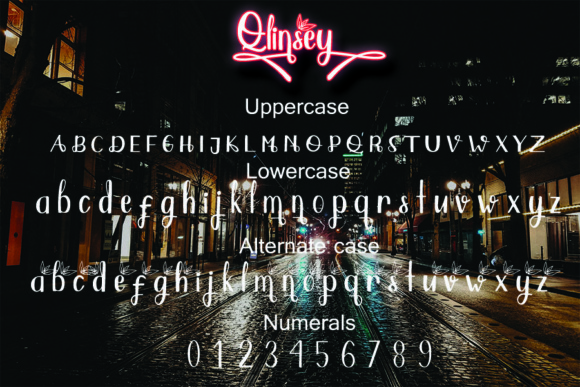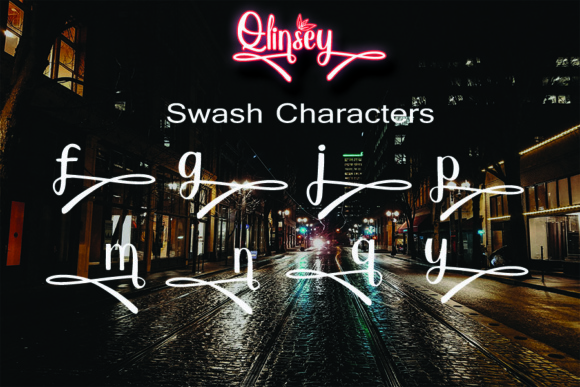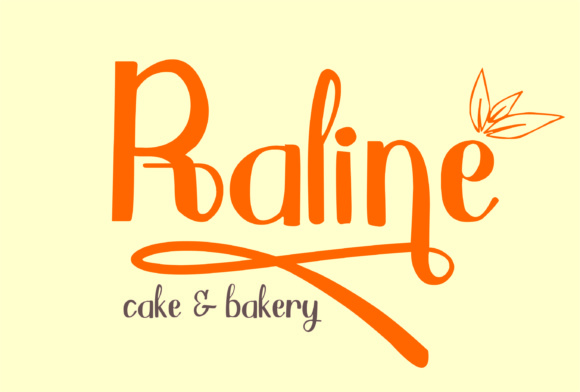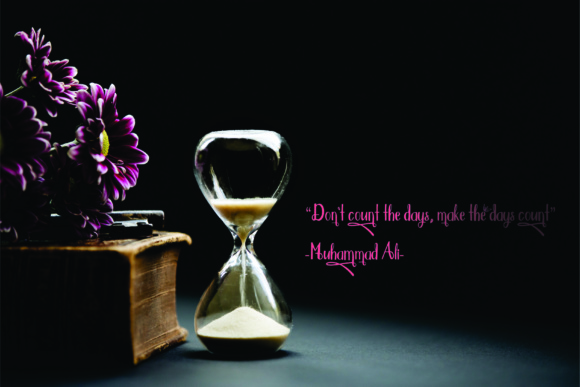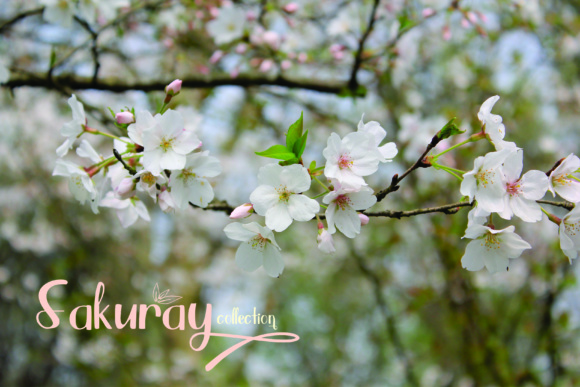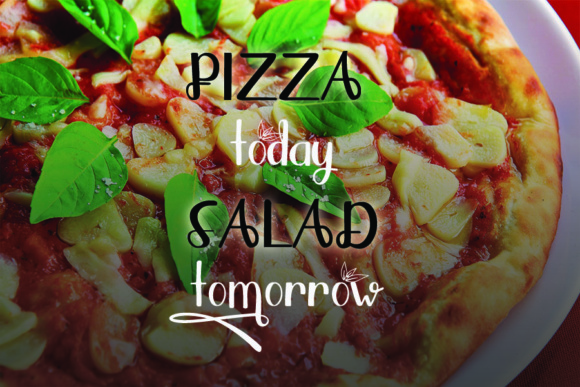
Introduction to Qlinsey Font
Have you ever been working on a design project, pouring your heart and soul into it, only to feel like something’s missing? That’s when the perfect font can make all the difference. For designers, the right font can elevate a simple design into a stunning work of art. That’s where Qlinsey Font comes in – a clean, handwritten font that’s perfect for making your creative projects shine.
With its many swashes and authentic leaf alternates, Qlinsey Font offers endless possibilities for customization. Whether you’re working on a logo, card, or any other design project, this versatile font is sure to help you achieve your vision. And the best part? It’s available for free download, making it a valuable resource for designers of all levels.
As a high-quality design resource, Qlinsey Font is a must-have for anyone looking to add a touch of elegance and sophistication to their work. Its transparent background allows for seamless integration with any design, making it a versatile choice for a wide range of creative projects.
Key Features of Qlinsey Font
- High-quality, professional font suitable for creative projects and design resources.
- Features a unique, modern design with a transparent background, allowing for versatility in design applications.
- Designed with a focus on legibility and readability, making it ideal for body text and headings.
- Perfect for use in digital design, including web design, graphic design, and publishing.
- Includes a comprehensive character set, covering Latin, Cyrillic, and Greek alphabets, as well as punctuation and symbols.
Honest Review: Qlinsey Font
I recently stumbled upon the Qlinsey Font and was excited to try it out for my creative project. The first thing that caught my eye was the high quality of the font. It’s clear that the designer put a lot of thought and effort into creating a unique and visually appealing design.
- High quality design that’s perfect for creative projects
- Transparent background makes it easy to work with
- Only available in a limited number of weights
- May not be suitable for very large or complex designs
Overall, I’m really impressed with the Qlinsey Font. It’s a great addition to any designer’s toolkit, and it’s perfect for anyone looking for a high-quality font that’s easy to use. ⭐️⭐️⭐️⭐️ (4/5 stars)
Common Use Cases for Qlinsey Font
The Qlinsey Font is ideal for creative projects that require a high-quality, modern font. It’s perfect for use in logos, branding materials, and marketing graphics, as well as in presentations and documents that require a professional touch.